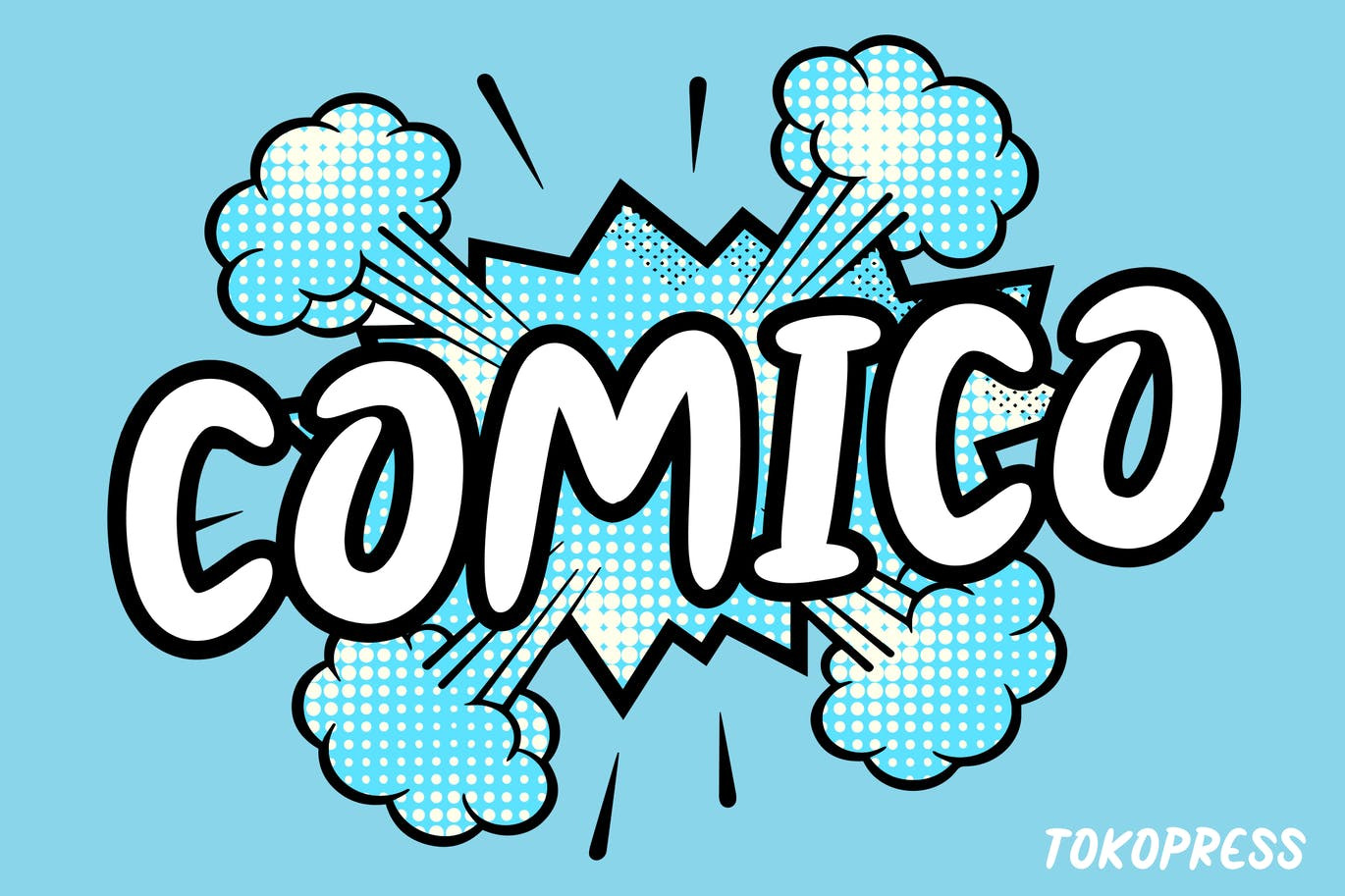
COMICO - Kids font
Fun and all about a comic world with COMICO.
Suit perfectly for gaming market audiences, poster, movie title, fun restaurant/ cafe menu, magazine, youtube covers, youtube thumbnails, social media page covers and so on...